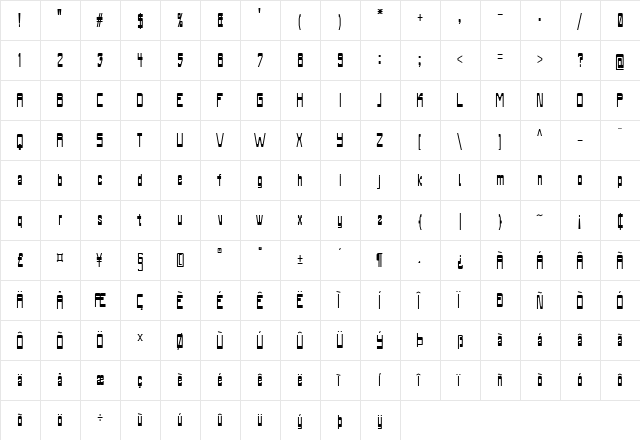
Biasachxua Regular
| Foundry | Hiep Tong |
| Designer | Hiep Tong |
Design Context for Biasachxua Typeface
Biasachxua offers clean, dependable letterforms without strong stylistic allegiance, making it a practical choice for designers who need flexibility.